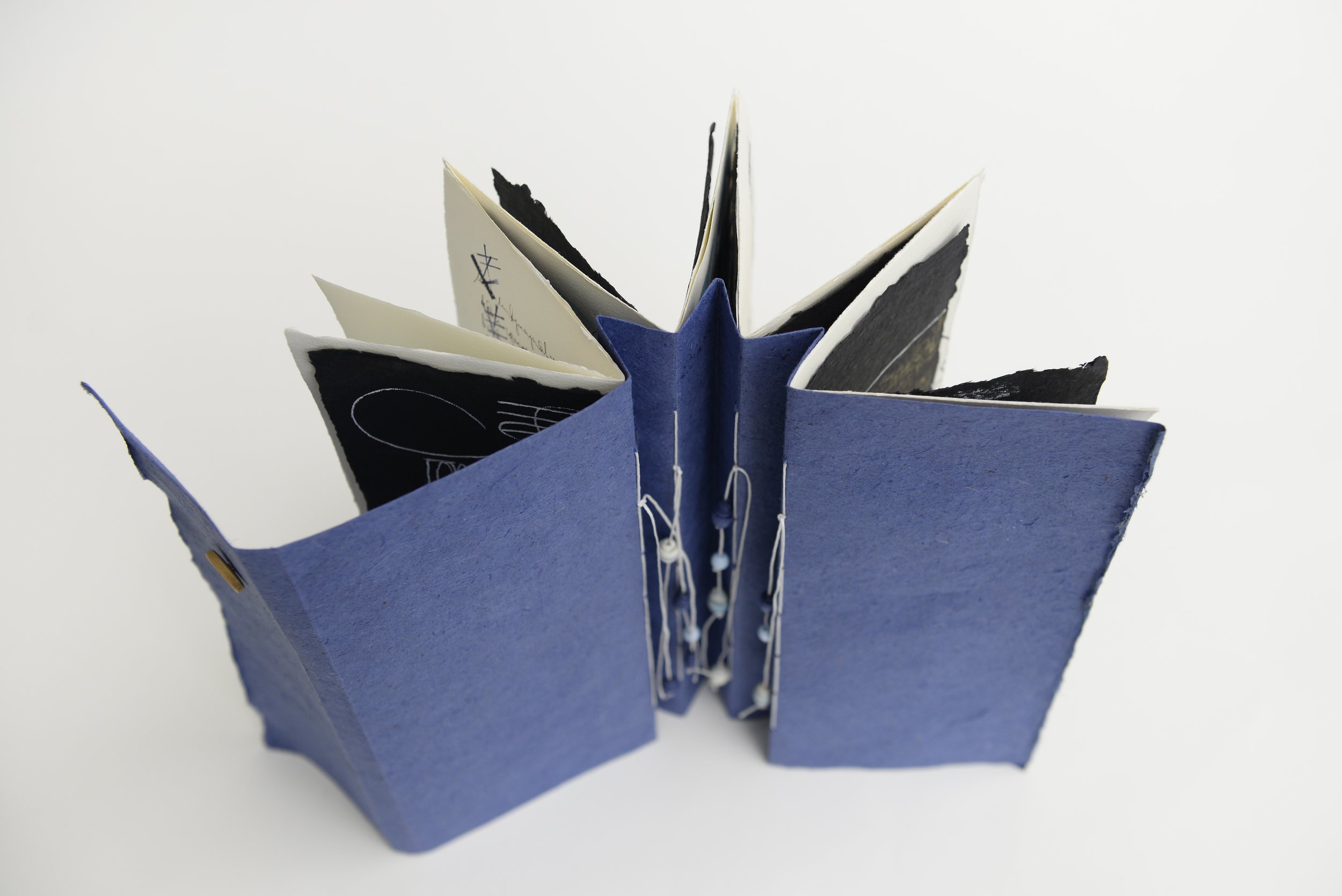
BERNICE VAN OVERBEEK | Denkend aan Holland (Thinking of Holland)
TITLE | Denkend aan Holland (Thinking of Holland)
This blue, white, black book is inspired by the Dutch Delft Blue pottery. The text is from of the most famous Dutch poems “Denkend aan Holland” (Thinking of Holland) which is about the Dutch landscape and the fight against water after the flood in 1953.
This book resonates with meaning for my mentoring journey. My personal goal for this mentoring journey was to grow as an artist; not only as a calligrapher who can write a text of beautiful hand, but an artist who can turn calligraphic work into art. As a structured perfectionist, it was a challenge to let go of my habit of detailed planning, and to begin creating in a holistic way using the new tools, scripts and techniques I have discovered on this journey. Gemma Black has been the best mentor for me in this process.
Faced with health challenges and struggling to recover from long Covid, I created this most personal, challenging and emotional piece.
MEDIUM | Arches Velin 160gsm, Saiboku Aya Ai (Indigo), Pelikan 4001 Blue Black, Micron fineliner, Dr. Ph. Martin’s Bleedproof White, Dr. Ph Martin’s Copperplate Gold, Speedball B nib, balsa wood, Brody pen, automatic pen, handmade paper (black), ananas paper
As a psychologist specialised in autism, Bernice worked in her own practice until she had to quit her daytime job in 2012 due to serious health issues. In search for a way to cope with chronic illness and pain, she became intrigued by some calligraphy work while scrolling through Instagram. She ordered a beginner calligraphy set and from that first moment, in May 2018 when she picked up a pointed pen, she instantly fell in love with this art. Starting with Copperplate, Bernice soon began trying different other scripts and tools, and a new passion was born. Calligraphy turned out to be life-changing. Being homebound, Bernice found new fulfilment in calligraphy during the day when the children were in school.
Bernice’s urge to constantly learn and grow in this art shows in the many courses she has taken, and the various scripts she has assiduously studied. When the Covid pandemic hit the world, learning from teachers all over the world became easily available, and turned out to be an amazing way to learn from home, at her own pace. Bernice soon discovered that this art is a life-long learning process!